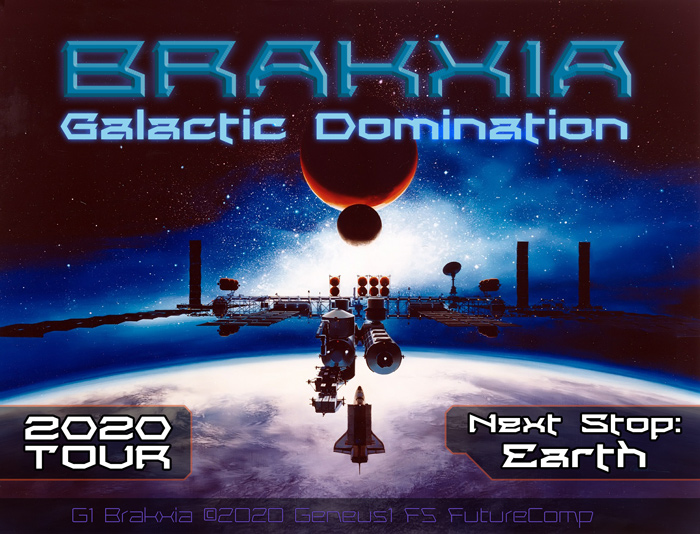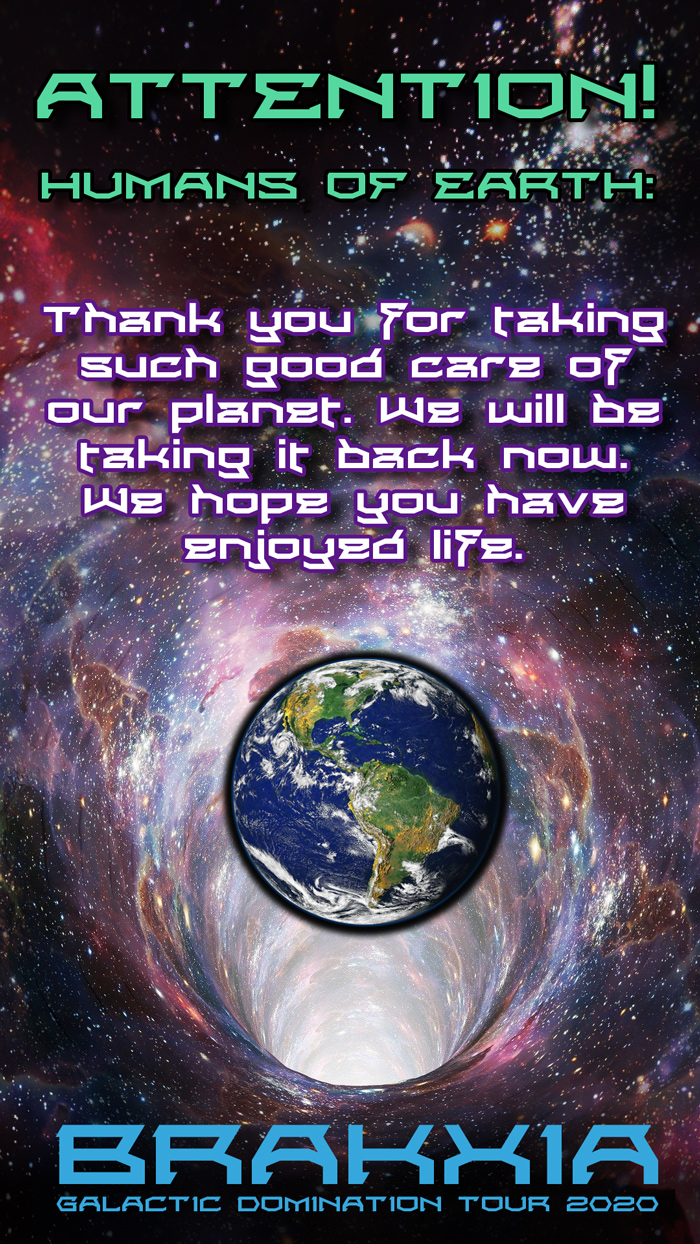
• Remember that time in the future, when those mean, hyper-aggressive, sarcastic aliens tried to take over the planet? Those guys were jerks. But I did like the font that they used to communicate with us measly humans. Alternate extraterrestrial realities are the future.
Yes! This is the type of font I would associate instantly with the future. Beautiful letters, with nice proportions, and the text oozing style. Nothing too complicated; simple geometric shapes with the right amount of pizzazz. Lovely letters "a" and "e". Impressive retro Sci-Fi posters. Great work. 10/10
Check the Letter Width of the "z".
The different angled bricks combined in a refreshing new way.
This font perfectly represents those aliens. Mean and hyper-aggresive, with sharp corners, its beautiful in a futuristic sci-fi way. 11/10!!!